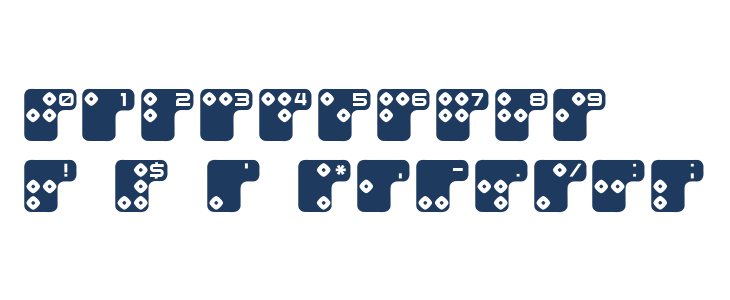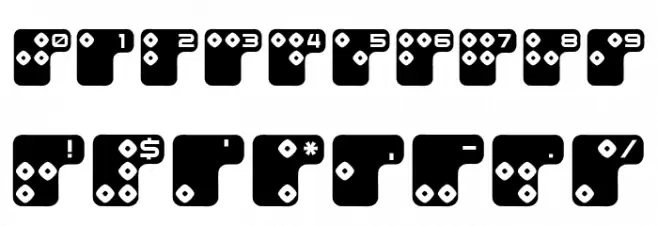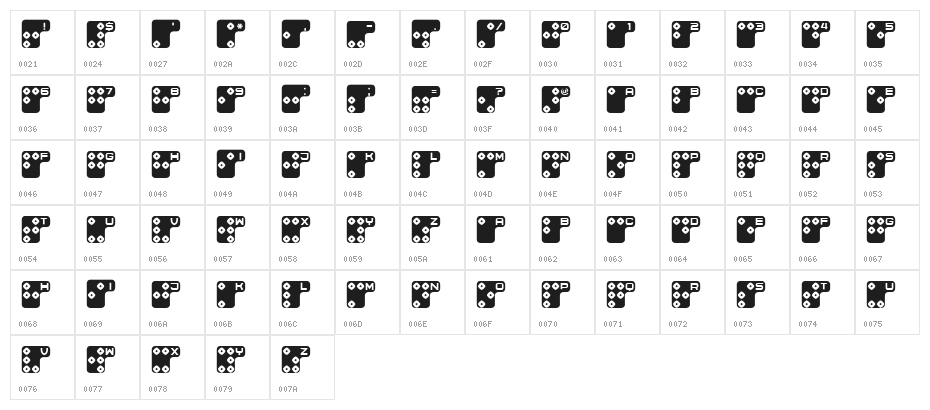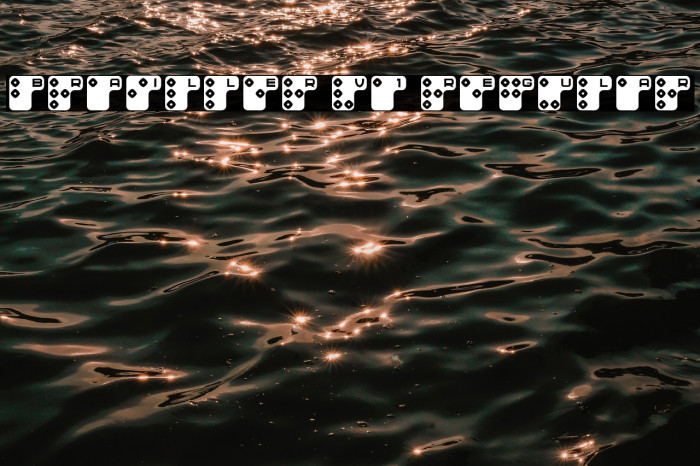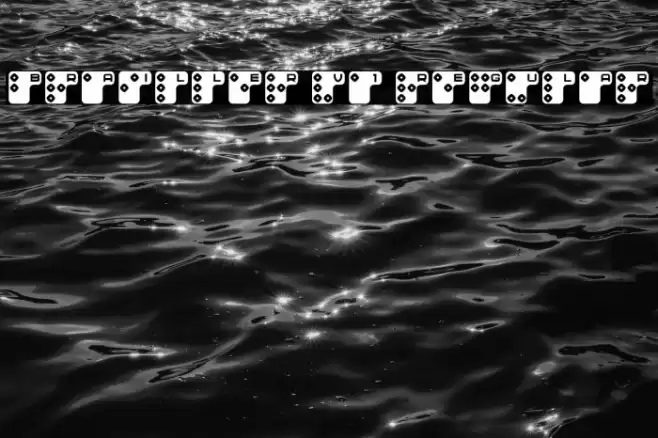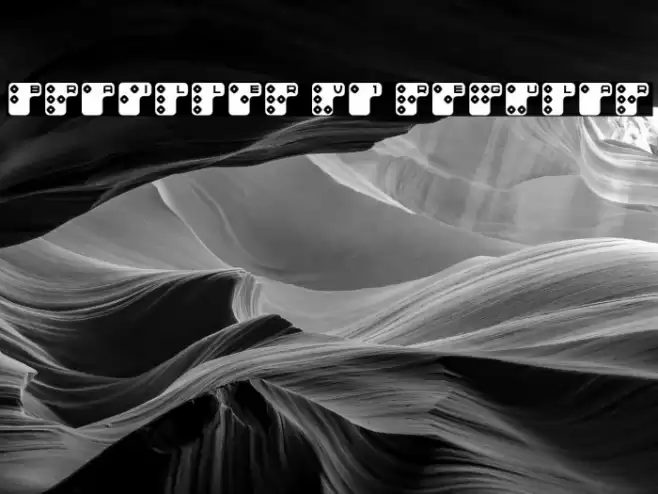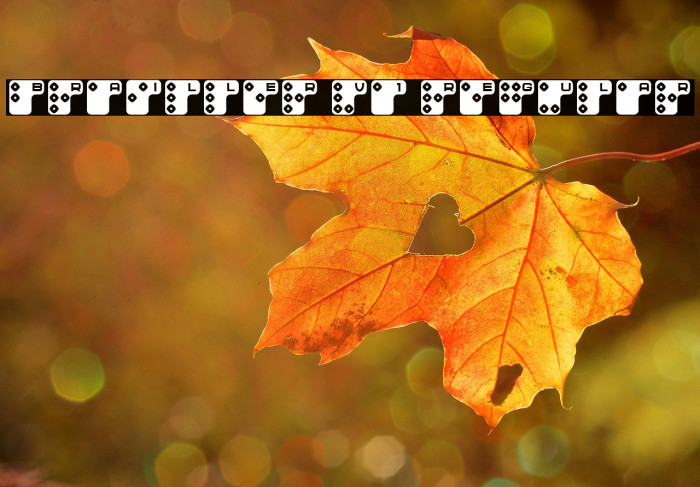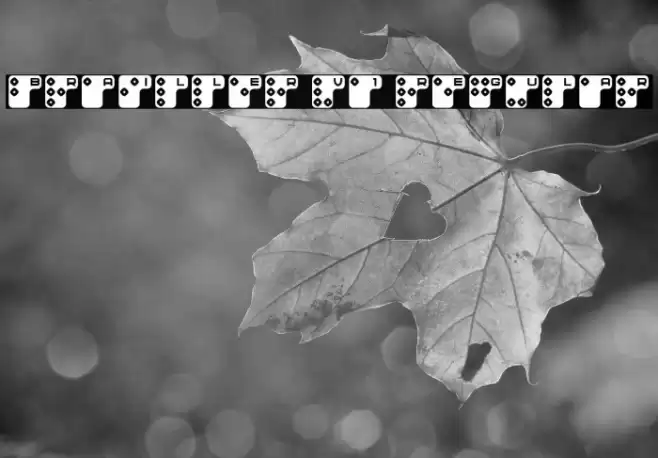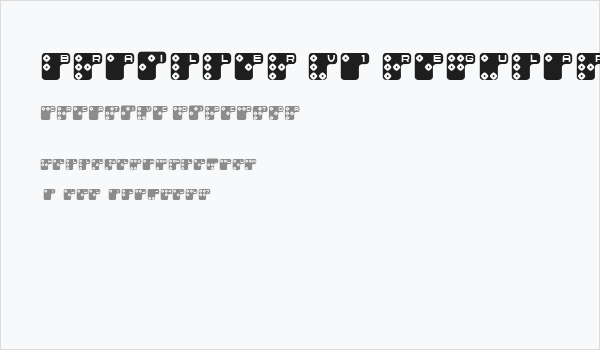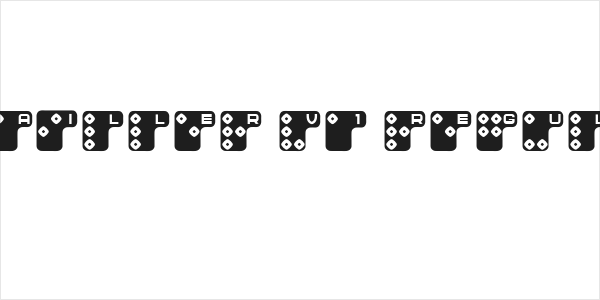
Brailler V1 Regular Font
Brailler V1 Regular Description
This font is a unique representation of the Braille writing system, adapted into a visual format that combines traditional Braille dots with a bold, modern aesthetic. Each character is enclosed in a solid, black rectangular block, with white Braille dots prominently displayed, making it both visually striking and functional. The design maintains the integrity of Braille, ensuring readability for those familiar with the system, while also serving as an artistic interpretation for visual communication. The font includes a full set of uppercase and lowercase letters, numbers, and a selection of special characters, all adhering to the Braille dot pattern. This makes it an excellent choice for projects that aim to bridge the gap between visual and tactile communication.
Use CaseLogos, Educational materials, Accessibility designs
Proposed ProjectsIdeal for educational materials, accessibility-focused designs, art projects, and any work aiming to raise awareness about Braille.